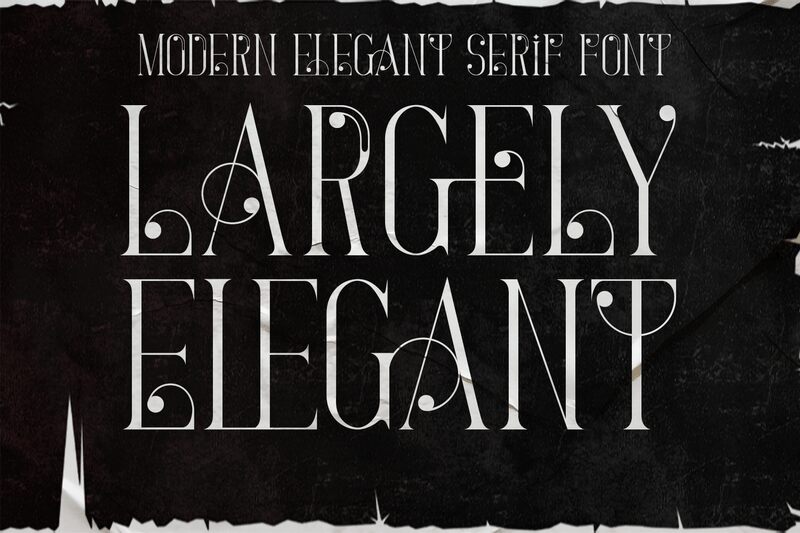
Largely Elegant Regular
Largely Elegant, designed by 177Studio, is a captivating display font that exudes a retro charm with its semi-light weight and extra-condensed width. Its elegant and decorative features make it perfect for a variety of creative projects. Use this font to add a touch of sophistication to your vintage-inspired logos, stylish wedding invitations, or trendy fashion editorials. Largely Elegant will elevate any project seeking to evoke nostalgia while maintaining an air of modernity. Let this font be your go-to choice when you want to infuse your designs with timeless elegance and artistic flair.